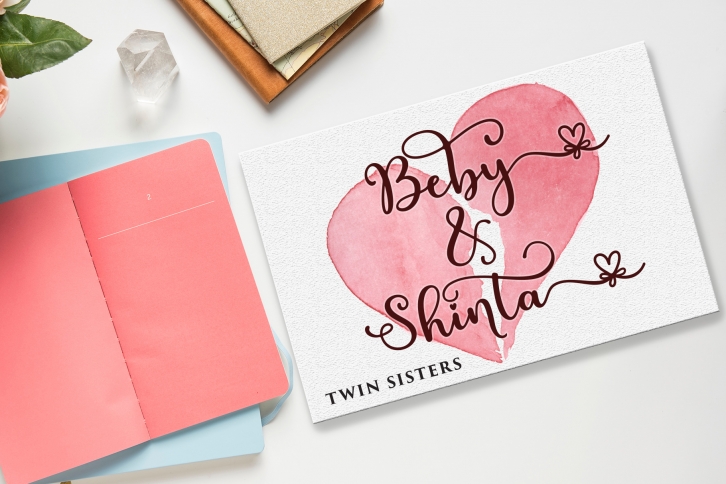
Rosaliya script is a great font that was designed by Sulthan studio. Imagine the amount of combinations you can create using this font! The archive is 13.87 MB and it was released on February 10, 2020. Rosaliya script looks beautiful on wedding invitations, greeting cards, logos, posters, labels, t-shirt designs, logos, business cards and is perfect for use in ink or watercolor works, fashion, magazines, packaging and food menus, children's books and more!